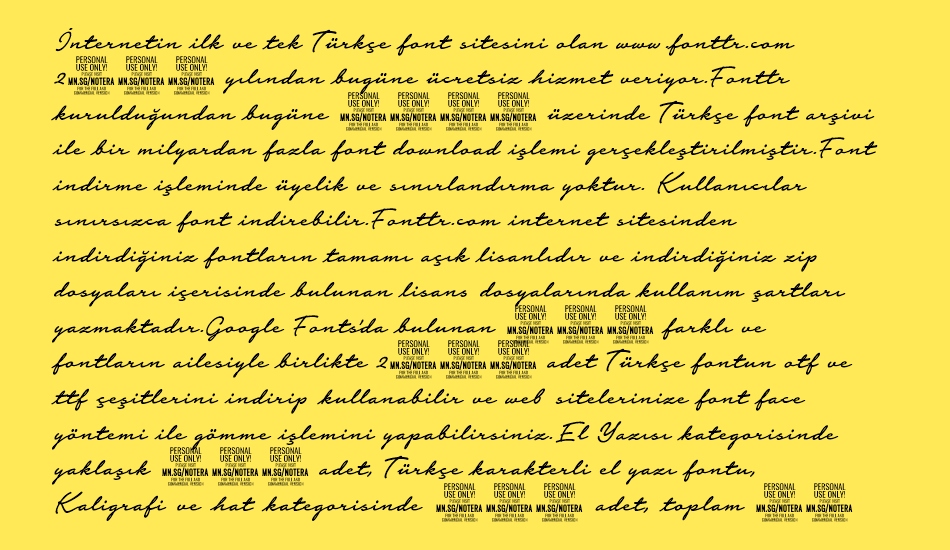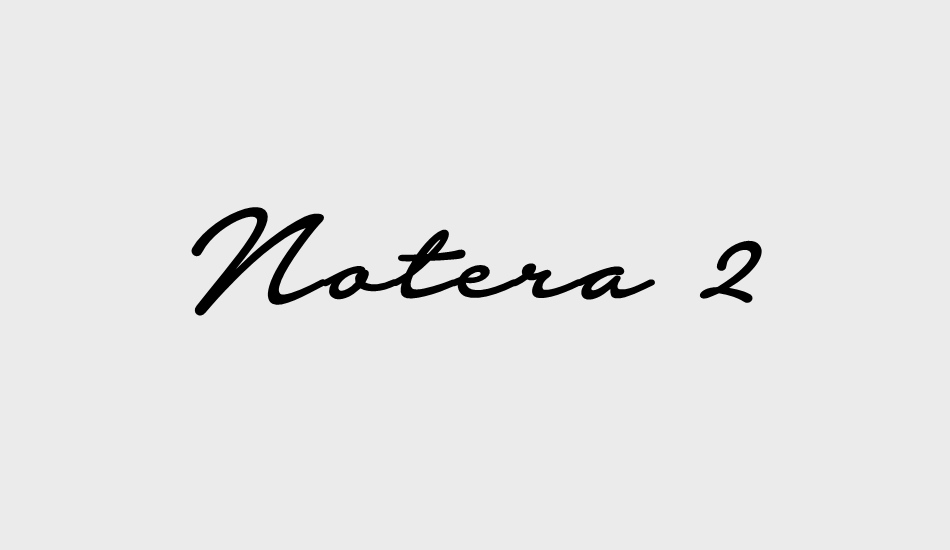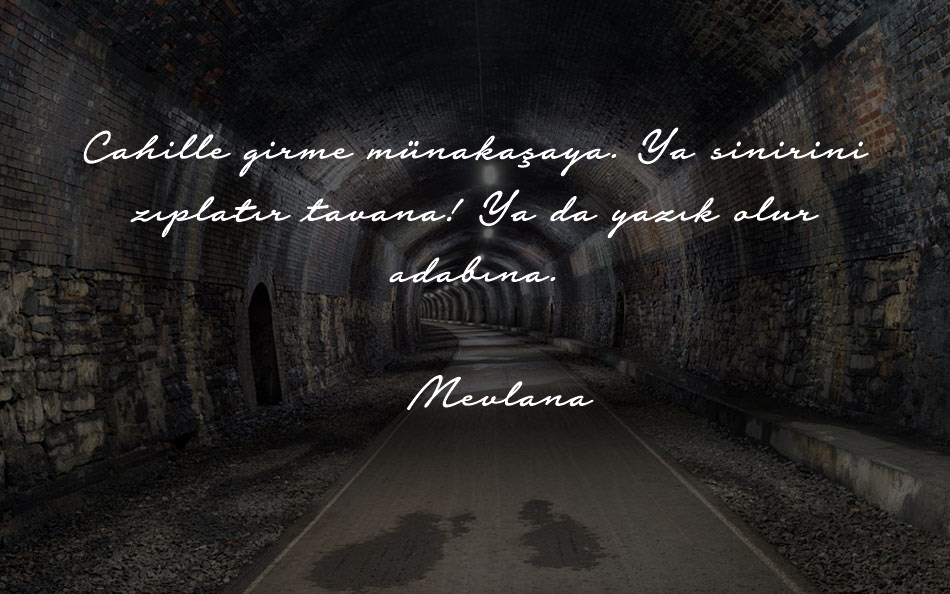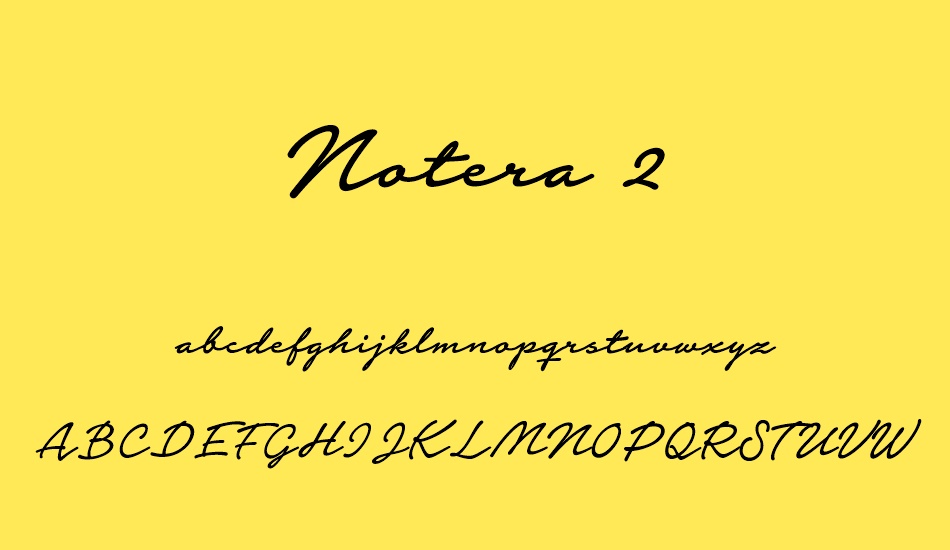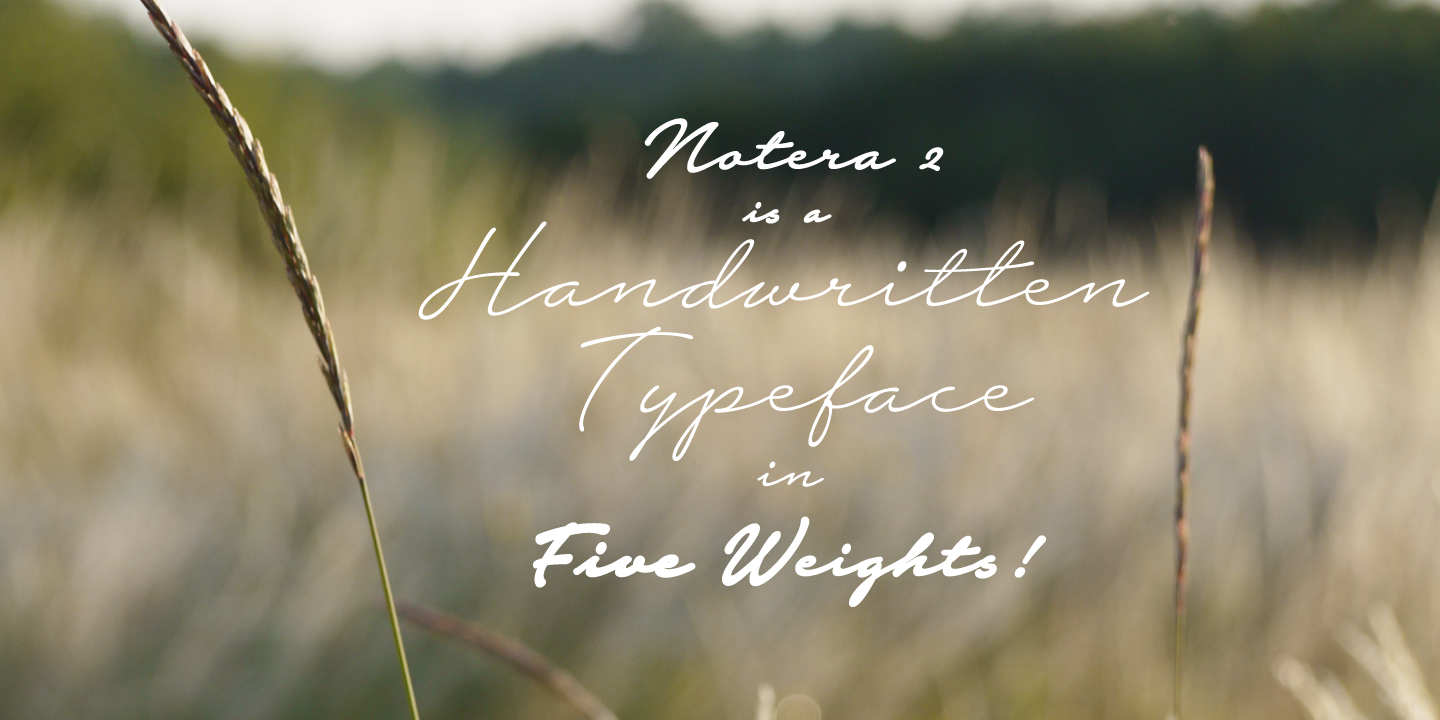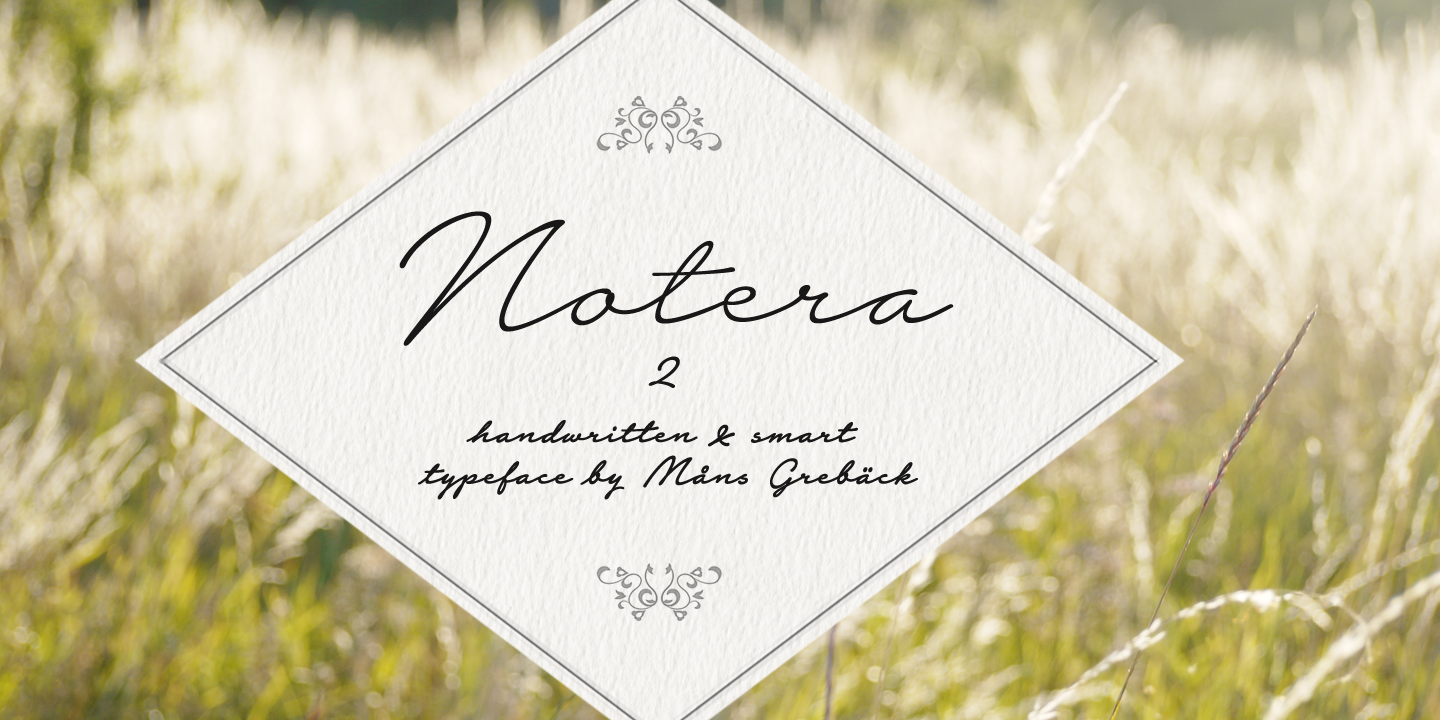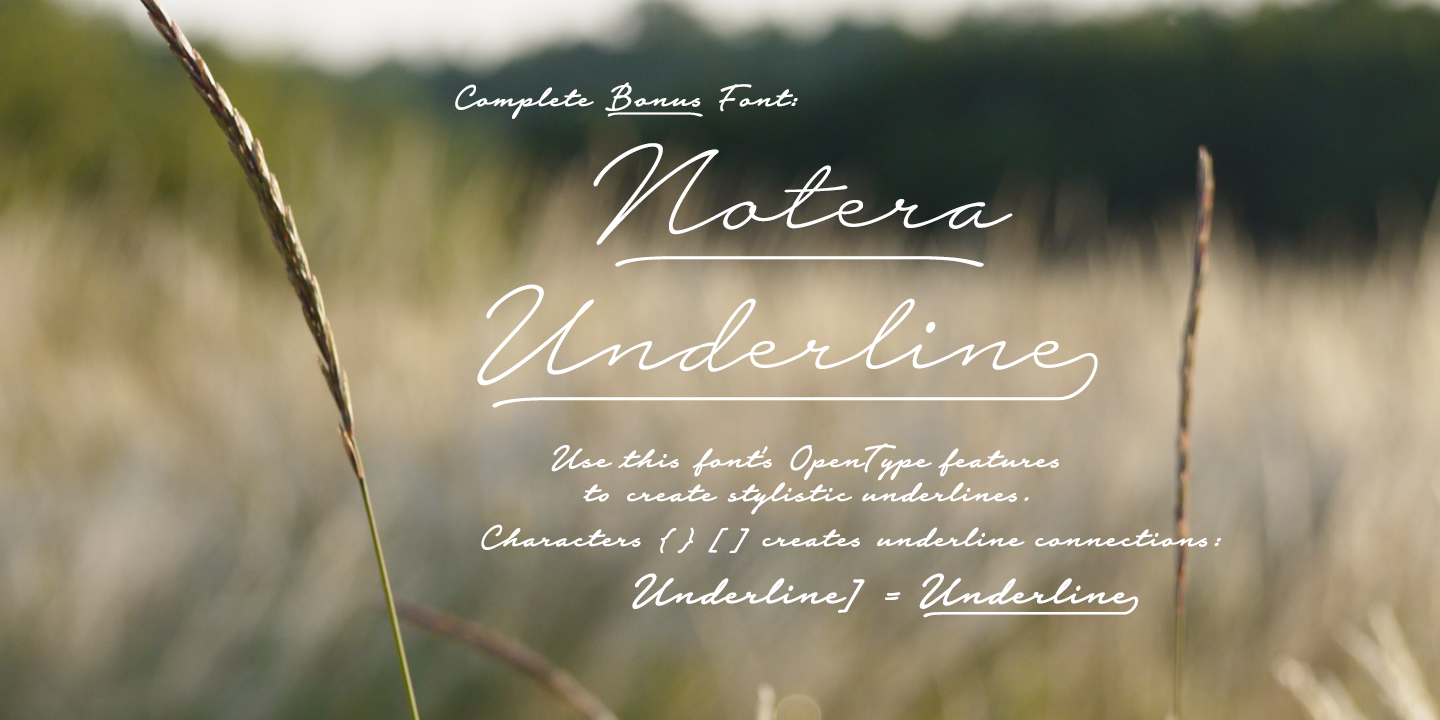
Notera 2 font
Notera 2 is a handwritten typeface drawn and created by M?ns Greb?ck in 2018.
It is a recreation of the popular Notera font, extended to five weights:
Thin, Light, Medium, Bold and Black.
With its hundreds of glyphs, Notera 2 supports a very wide range of languages.
The font contains OpenType features such as stylistic and contextual alternate alphabets for a genuine handwritten style.
Together with the regular font, also included is the Notera 2 Underline font, for decorative underlining.